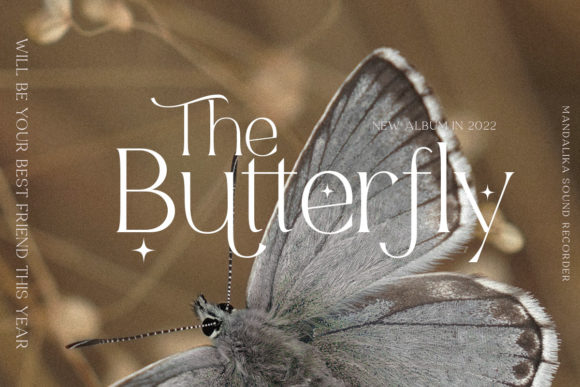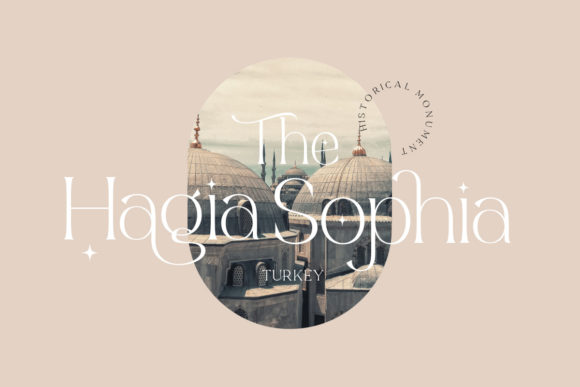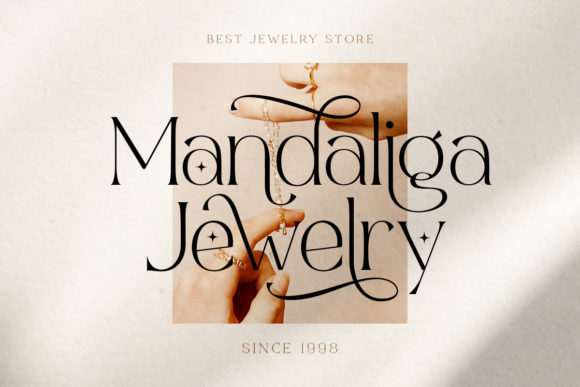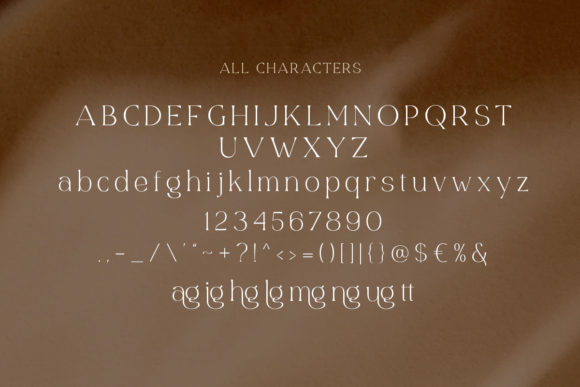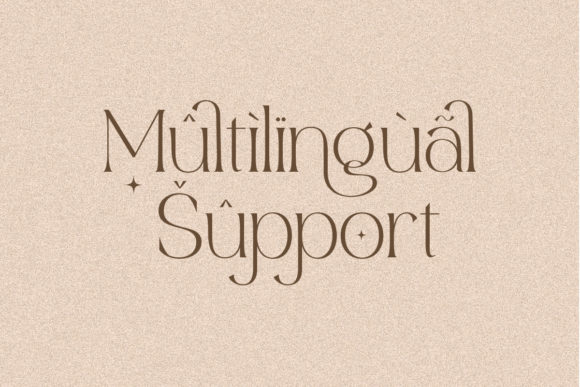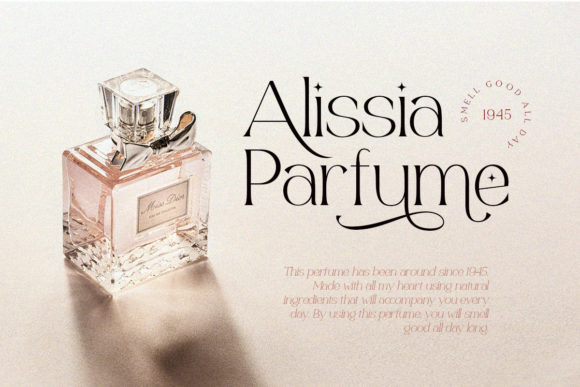
Introducing Angelic Bright Font: Elevate Your Designs with Elegance and Sophistication
In the world of typography, fonts play a crucial role in conveying the tone and personality of a design. For designers and crafters looking to add a touch of class and sophistication to their projects, Angelic Bright Font is an exceptional choice. This modern serif font boasts unique curves that can instantly elevate your designs, making them look fantastic and memorable.
What Makes Angelic Bright Font Stand Out?
Angelic Bright Font is not just another serif font; it’s a versatile typeface designed to make your projects stand out. Here are some key features that set it apart:
- Unique Curves: The font’s modern serif design includes unique curves that add a touch of elegance to any text. Whether you’re working on a quote, invitation, or logo, Angelic Bright Font ensures your design looks classy and sophisticated.
- Extensive Alternates: With a bunch of alternates at your disposal, you can experiment with different styles and variations to find the perfect fit for your project. This versatility makes it ideal for creating stunning and memorable designs.
The versatility of Angelic Bright Font makes it suitable for a wide range of design projects. Here are some ideas to get you started:
- Quotes: Add a touch of elegance to your quotes with Angelic Bright Font. Its unique curves and extensive alternates allow you to create visually appealing and impactful quotes.
- Invitations: Whether it’s a wedding invitation, birthday party invite, or any other special occasion, this font ensures your invitation looks sophisticated and classy.
- Wordmark Logos: Create memorable and stunning wordmark logos with Angelic Bright Font. Its modern serif design and alternates provide endless possibilities for logo design.
- Branding: Establish a strong brand identity with this elegant font. Use it for your brand’s marketing materials, packaging, or website to convey a sense of sophistication and class.
Why Choose Angelic Bright Font?
With so many fonts available, why should you choose Angelic Bright Font for your projects? Here are some compelling reasons:
- High Versatility: The font’s design and alternates make it suitable for a wide range of projects, from quotes and invitations to logos and branding.
- Unique Style: The modern serif design with unique curves sets Angelic Bright Font apart from traditional serif fonts, ensuring your designs have a distinctive look.
Angelic Bright Font is a modern serif font that can add a touch of elegance and sophistication to your designs. With its unique curves, extensive alternates, and PUA encoding, it’s an excellent choice for designers and crafters looking to create classy and memorable projects. Whether you’re working on quotes, invitations, wordmark logos, or branding, Angelic Bright Font is a versatile typeface that can help you achieve your design goals.